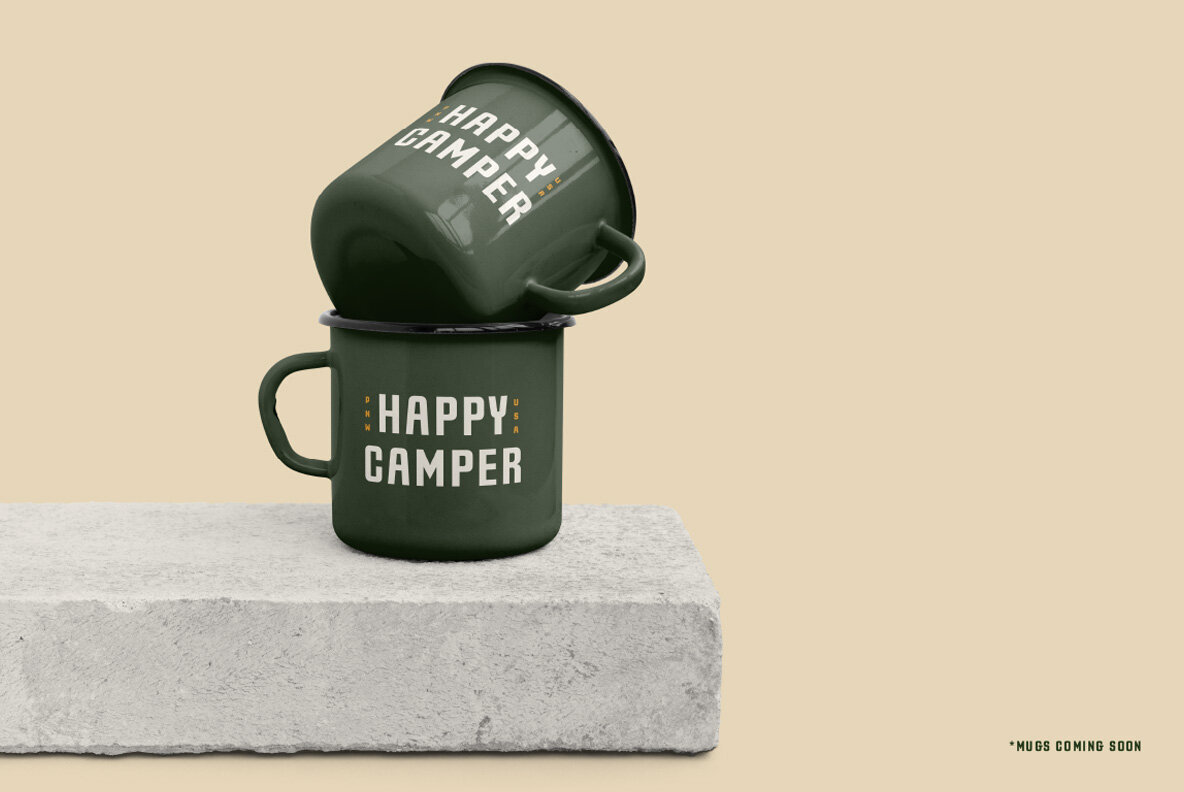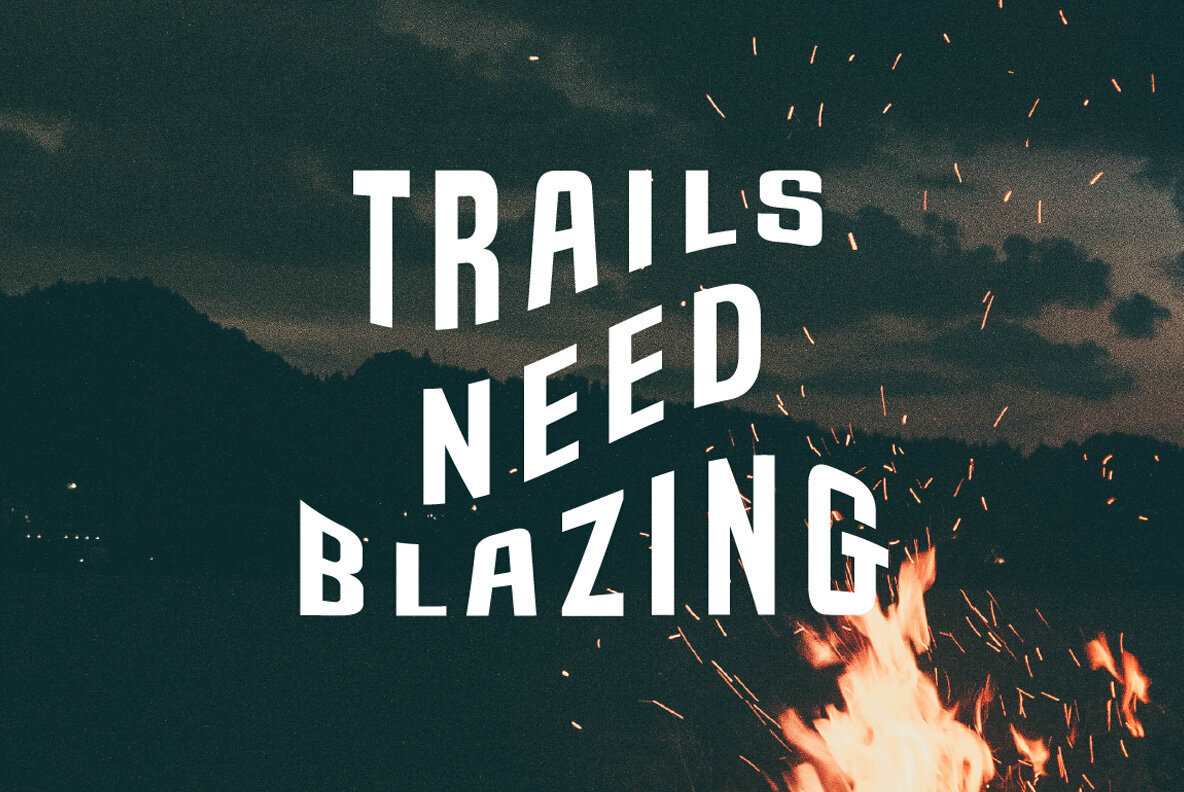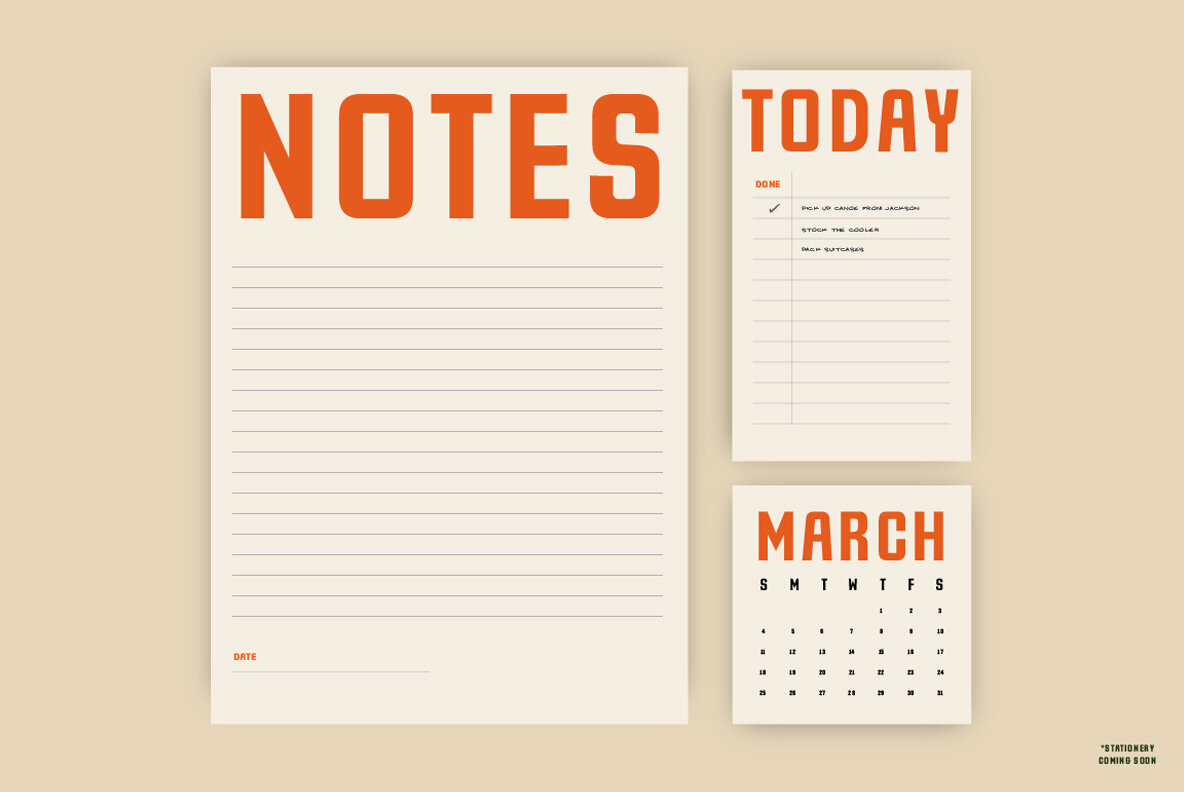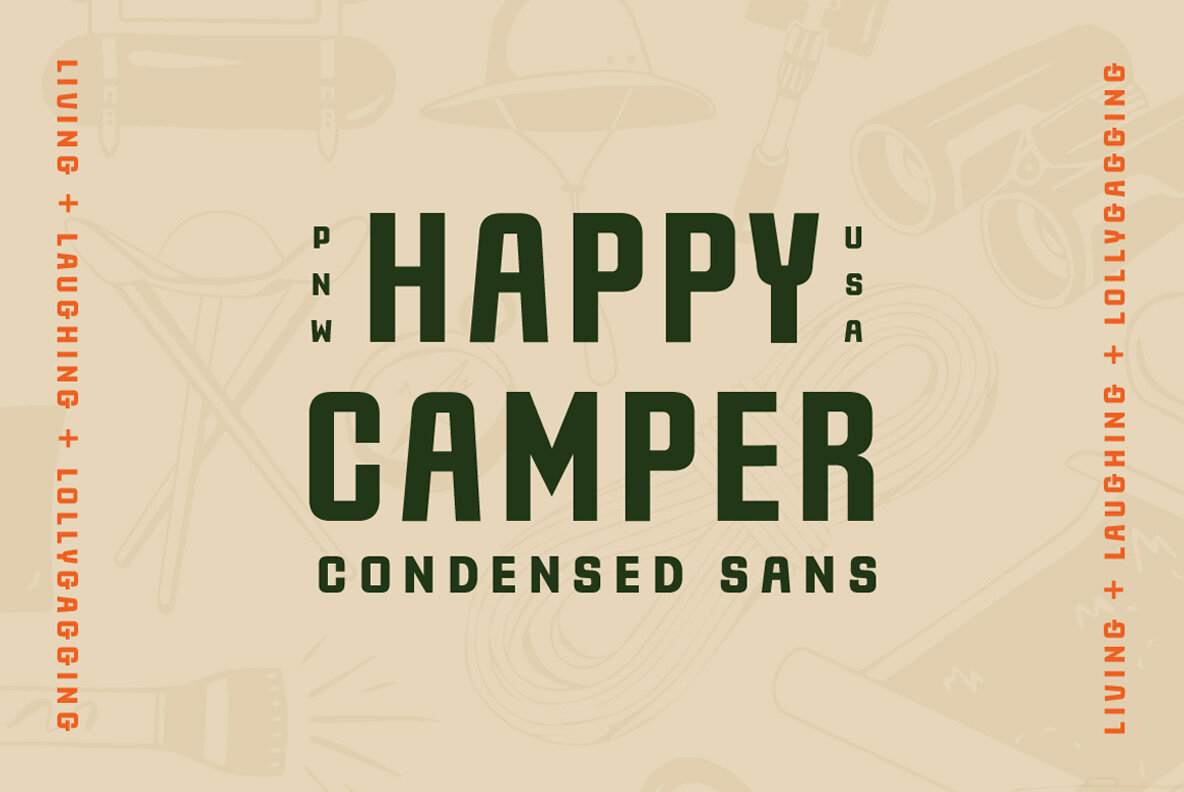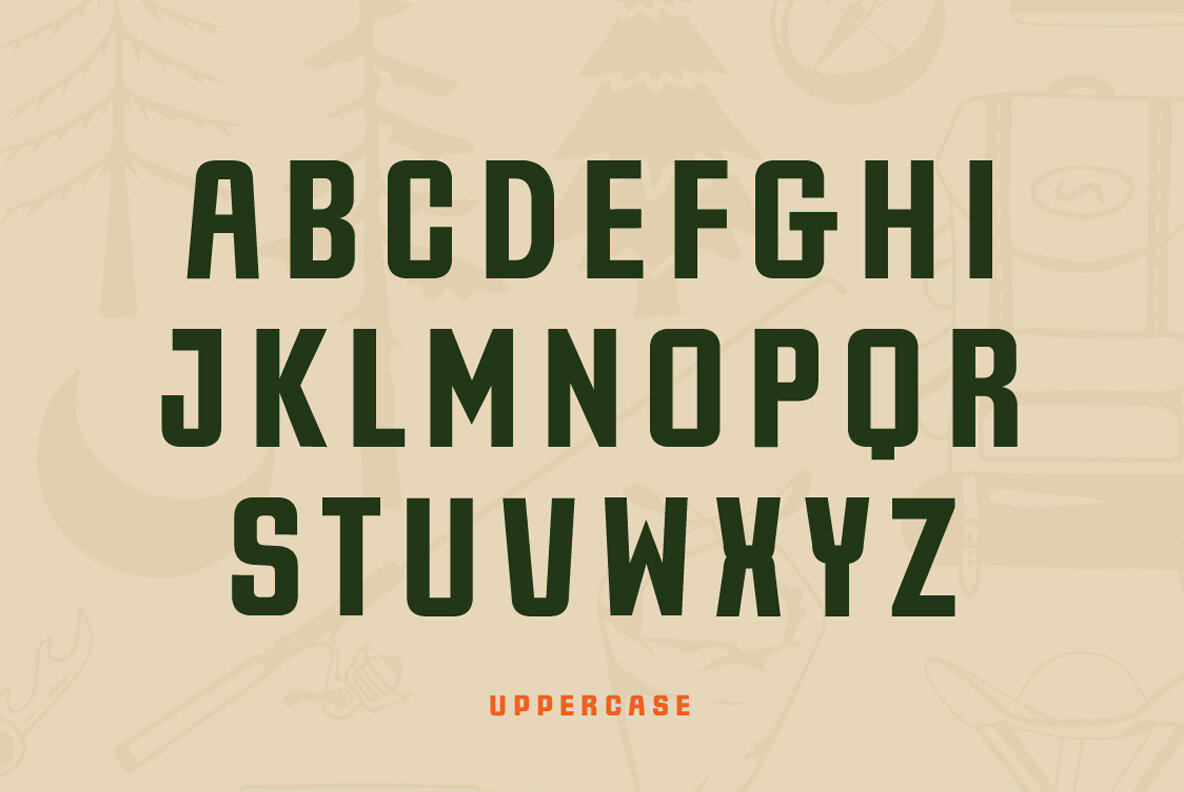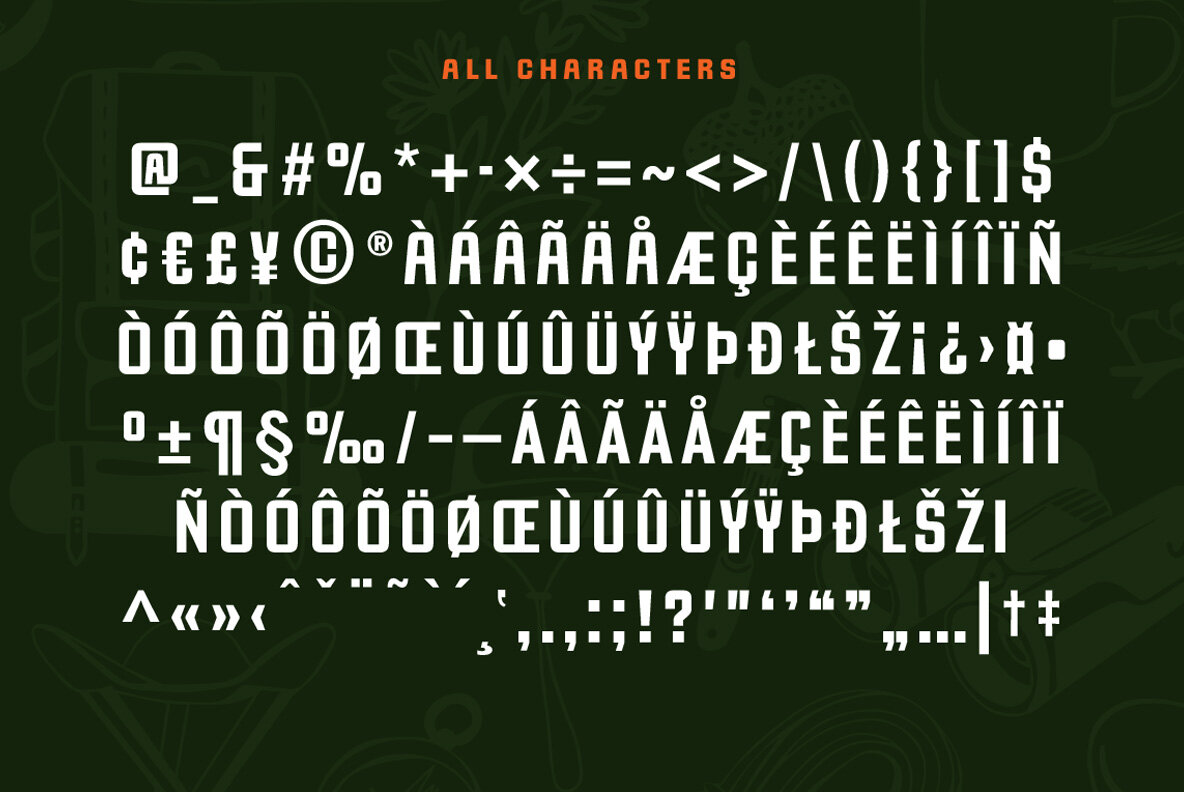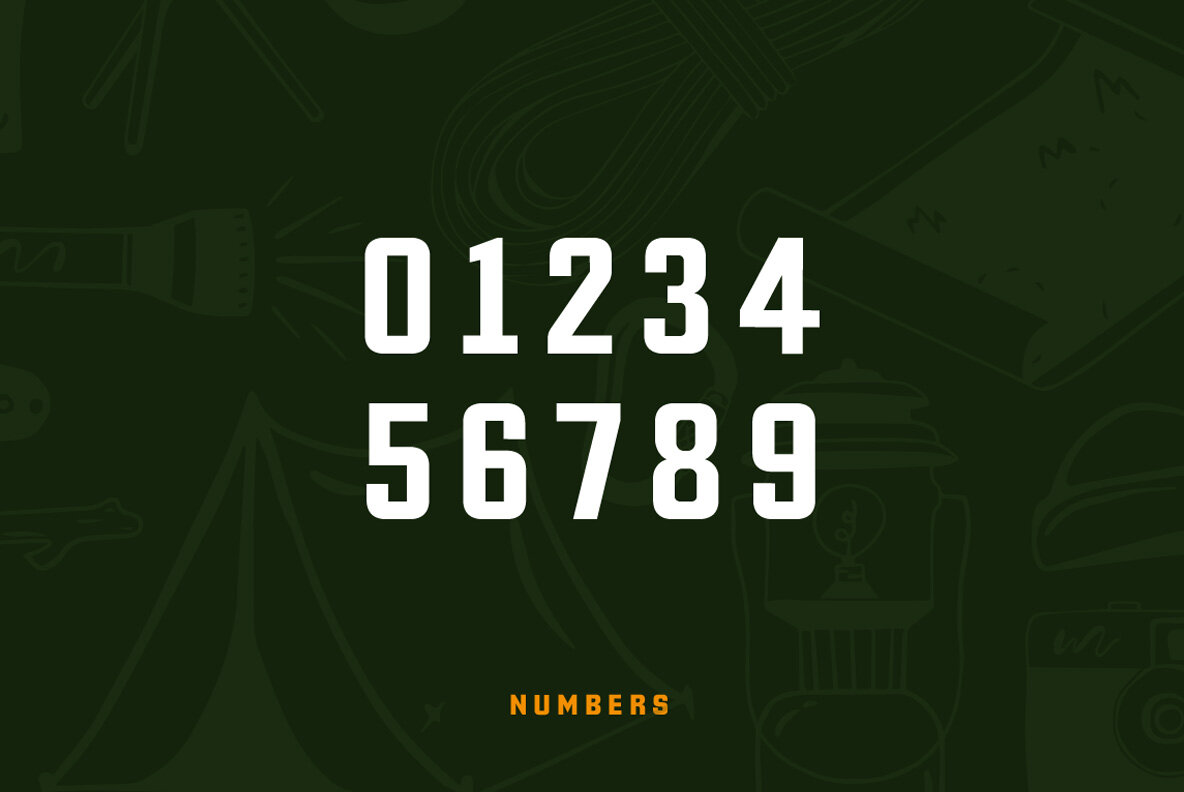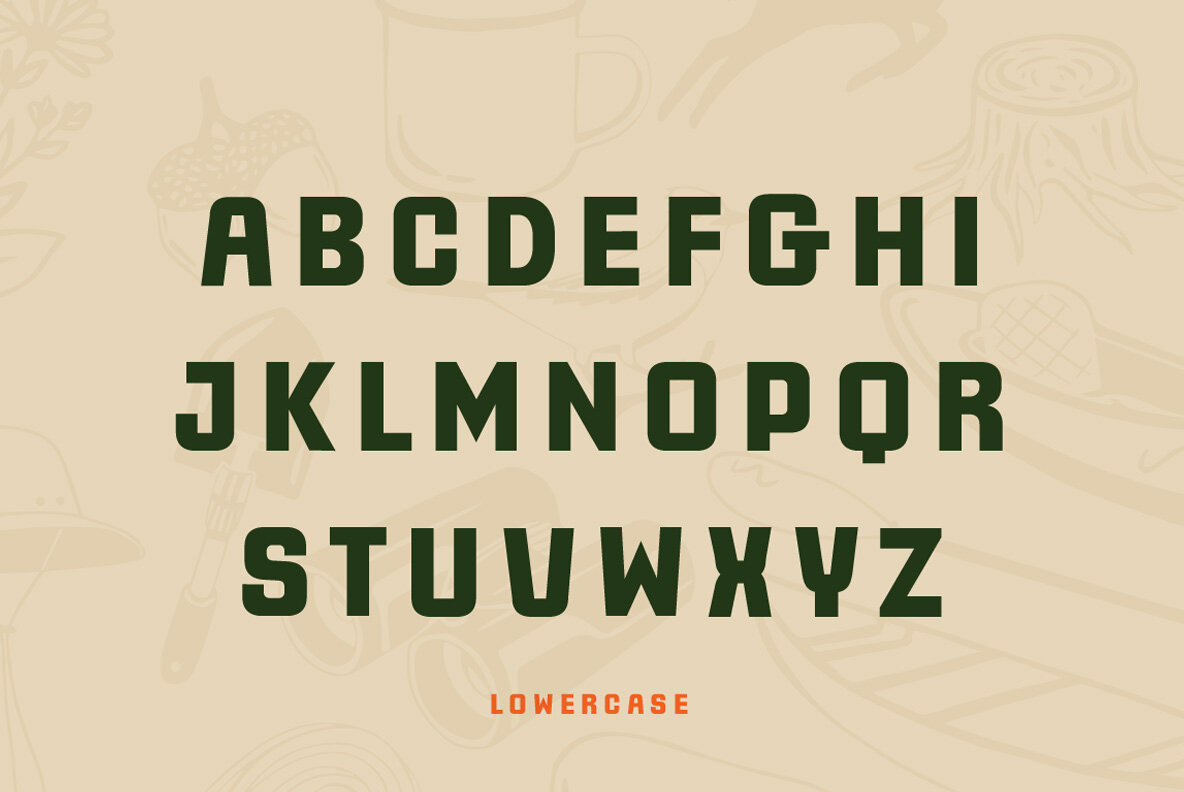
Happy Camper Font
Happy Camper
Happy Camper is a sturdy condensed sans serif with a little quirk. Perfect for logos, headlines, websites, and templates. The uppercase and lowercase options pair well together. Snag your copy of the Happy Camper today and get creative!